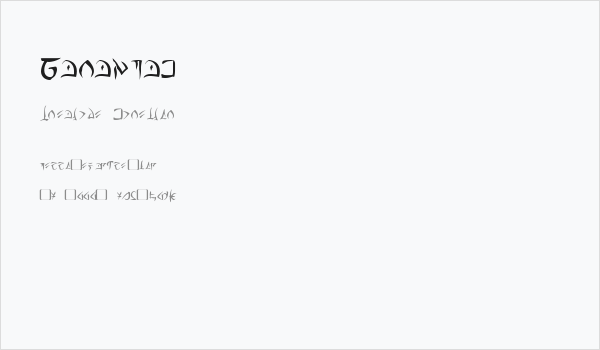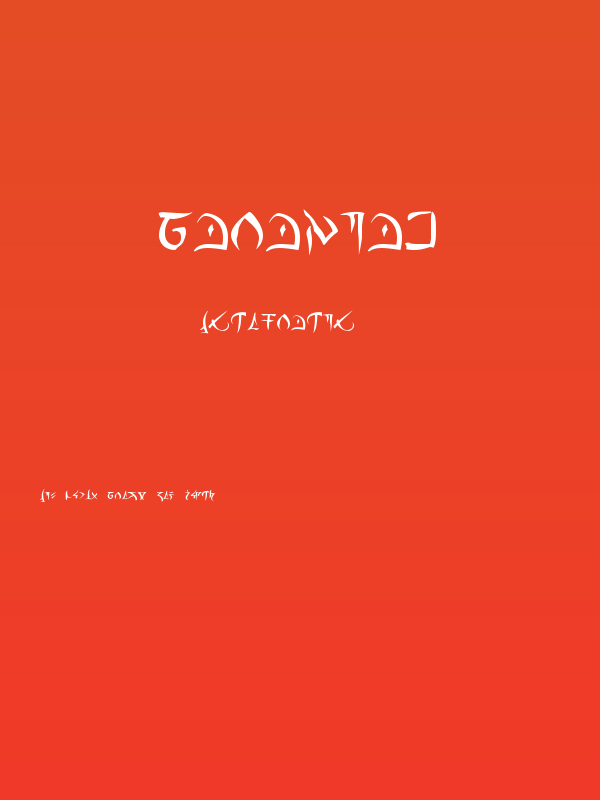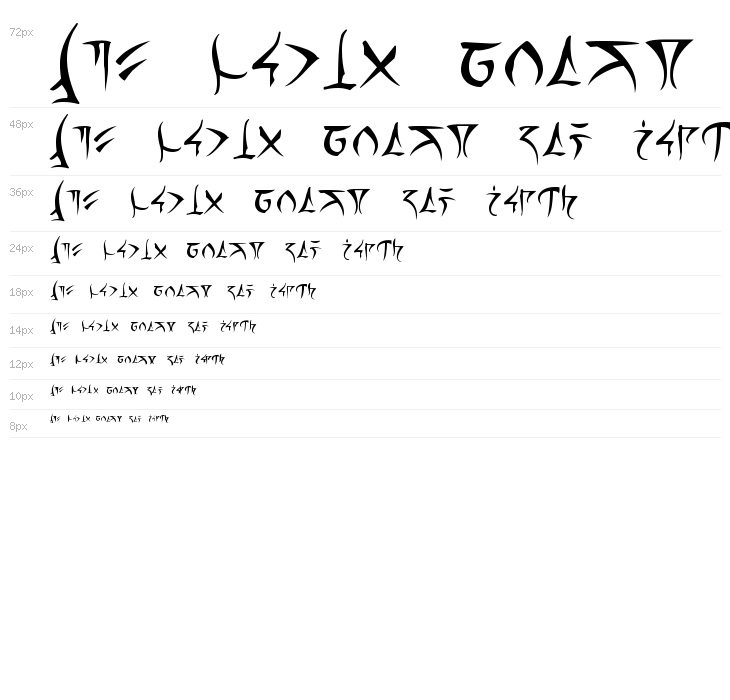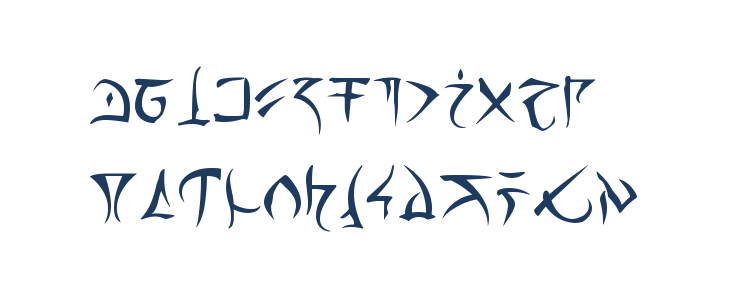
Barazhad Font
Barazhad Description
This font exhibits a highly stylized and decorative design, reminiscent of ancient scripts or fantasy alphabets. The characters are characterized by sharp, angular lines and dramatic curves, creating a sense of mystery and intrigue. Each letter is unique, with intricate details that suggest a handcrafted quality. The overall appearance is bold and striking, making it ideal for projects that require a touch of the exotic or otherworldly. The font's distinctiveness makes it unsuitable for body text but perfect for titles, logos, or artistic projects where a strong visual impact is desired.
| Proposed Projects | Ideal for fantasy book covers, game titles, movie posters, and artistic logos. |